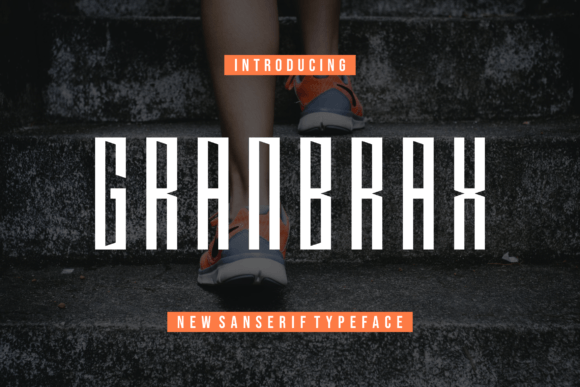
Welcome to the world of Granbrax Font, a stunning Sans Serif typeface designed to captivate and inspire. This modern font is the brainchild of the talented kalingga.albert, who meticulously crafted each letterform to deliver an exceptional visual experience.
With its clean lines, sharp angles, and crisp details, Granbrax Font exudes a timeless elegance that transcends the boundaries of design trends. Whether you're embarking on a branding project, creating eye-catching logos, or exploring the world of t-shirt printing, Granbrax Font is your trusted companion, ready to elevate your designs to new heights.
Immerse yourself in the versatile nature of Granbrax Font, a font family that seamlessly adapts to a myriad of creative endeavors. Its inherent versatility shines in both digital and print mediums, making it the perfect choice for web design, social media graphics, and print marketing materials. Unleash your imagination and watch as Granbrax Font transforms your words into striking visual statements.
One of the remarkable attributes of Granbrax Font lies in its exceptional legibility, even at smaller sizes. This remarkable characteristic makes it an ideal choice for in-line type applications, where clarity and readability are paramount. Whether you're crafting captivating headlines, informative paragraphs, or engaging call-to-actions, Granbrax Font ensures that your message is conveyed with crystal-clear precision.
Explore the depths of creativity with Granbrax Font, a font family that empowers you to express your individuality and leave a lasting impression. Its diverse range of weights and styles provides endless possibilities for customization, allowing you to tailor your designs to perfectly match your unique vision. Experiment with bold and impactful headlines, or opt for delicate and understated body copy – the choice is yours.